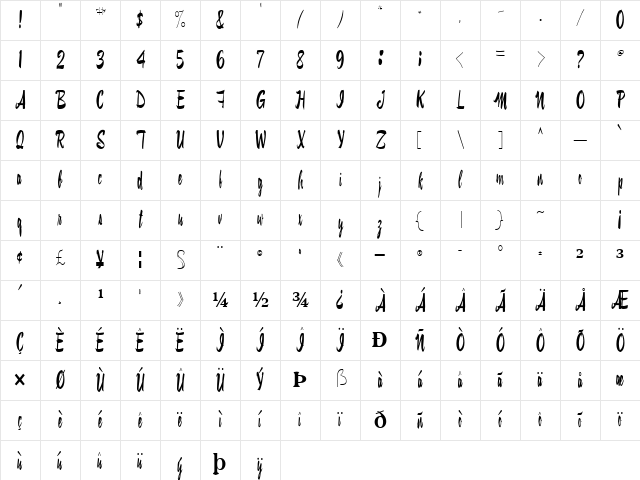
Complete SwishNorm64 Regular glyph index. Displaying only characters natively supported by SwishNorm64 Regular font.
SwishNorm64 is a composed and adaptable typeface that performs quietly and consistently across a wide range of design contexts.